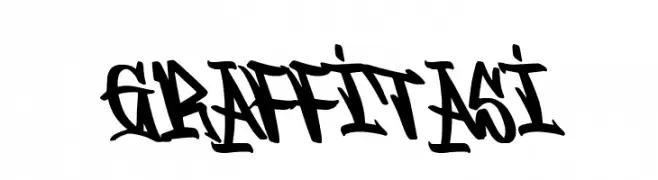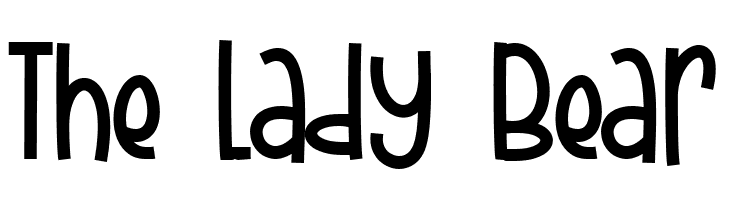
A whimsical script font with heart motifs and flowing cursive style.
An elegant script font with flowing, ornate cursive letters and intricate flourishes.
A bold, rounded font with a playful and friendly style.
A bold, graffiti-inspired font with angular, energetic characters.
A modern, elegant script font with flowing, cursive letterforms.
An elegant, flowing script font with smooth, cursive strokes.
A lively and elegant script font with smooth, flowing curves.
A dynamic, cursive handwritten font with bold, flowing letterforms.
A bold, rounded font with a playful and friendly style.
A sophisticated, elegant handwritten font with fluid, flowing strokes.